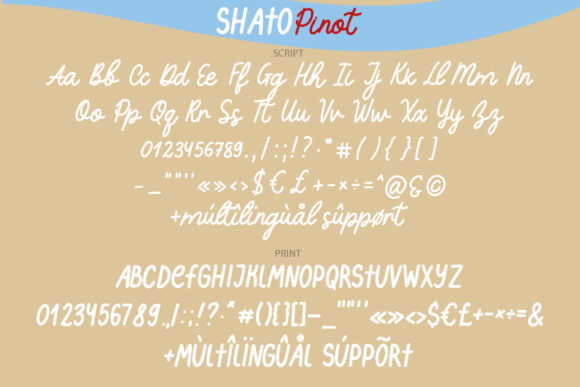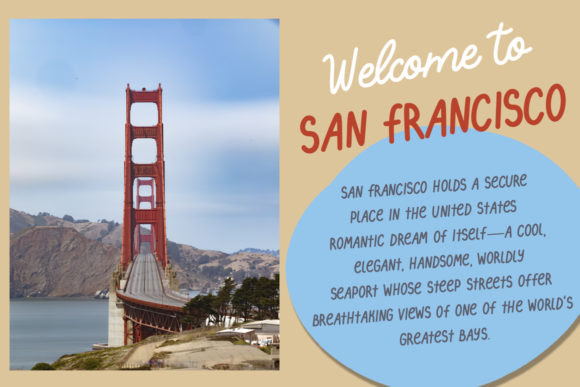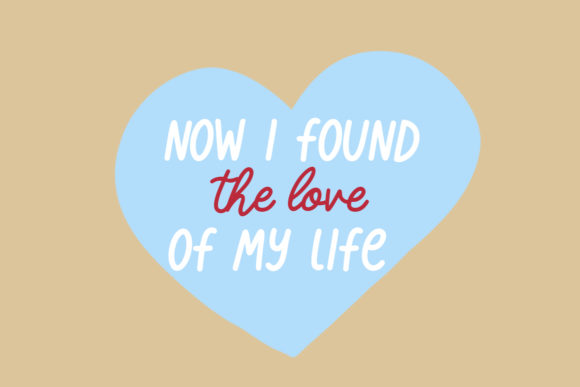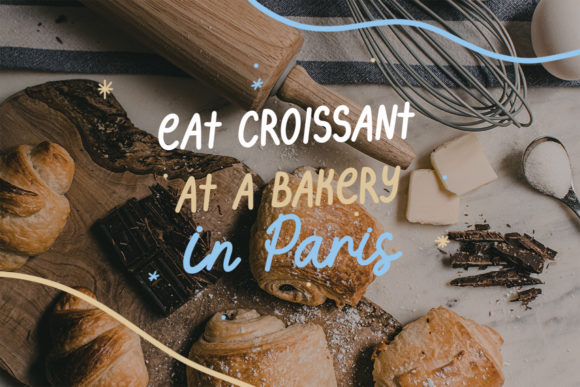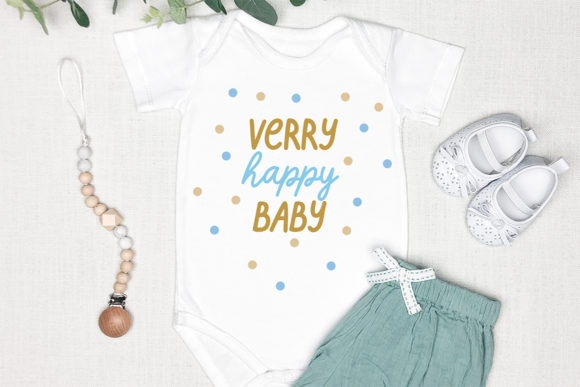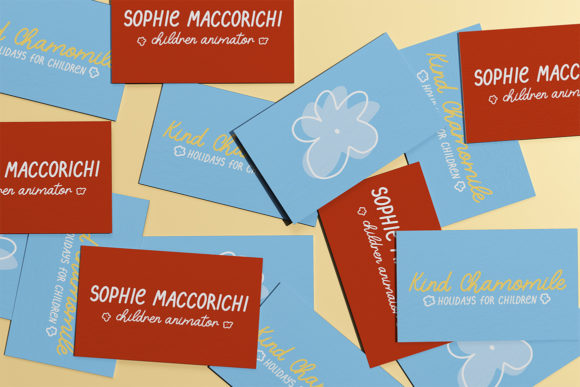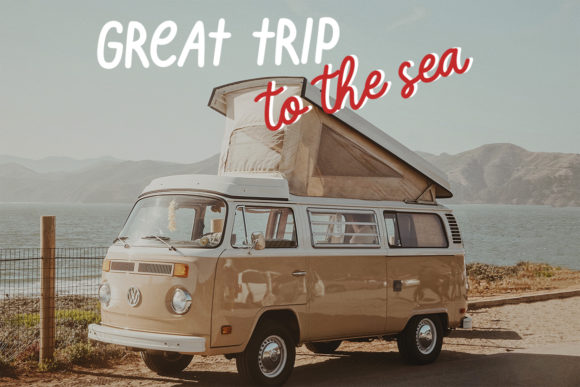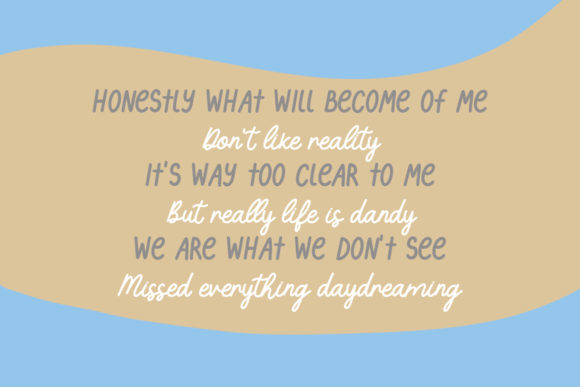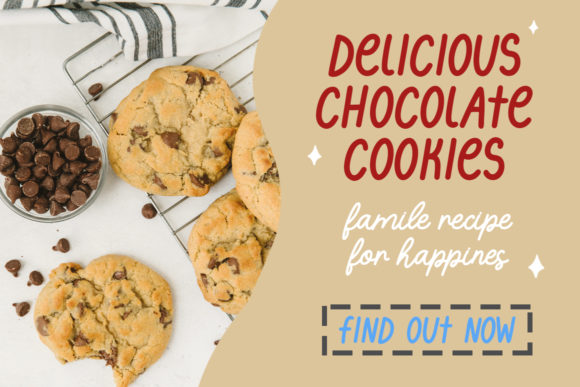
Shato Pinot Duo Font
About Shato Pinot Duo Font
Shato Pinot Duo is a font duo that exudes fun, readability, and a relaxed vibe in its handwritten style. With its charming and versatile nature, this font duo is perfect for adding a touch of playfulness and flair to a wide variety of cute and fun designs, elevating them to the highest level of creativity.
The fun, readable, and relaxed handwritten style of Shato Pinot Duo brings a sense of joy and ease to your creations. Each letter carries the artistic and friendly touch of handwriting, making your work stand out with a touch of genuine charm and allure.
With Shato Pinot Duo as your creative tool, you have the freedom to explore a wide range of design ideas. Whether you’re working on cute and fun projects or seeking a font duo that perfectly complements your playful vision, Shato Pinot Duo adapts effortlessly to bring a sense of versatility and liveliness to your work.
Embrace the fun and relaxed vibe of Shato Pinot Duo and witness how it transforms your designs into delightful works of art. Its readability and approachability add a touch of authenticity, making your creations truly captivating and filled with a sense of joy and creativity.
Discover the joy of creating with Shato Pinot Duo as your trusted companion. Let its handwritten appearance be the key to unlocking your creativity and infusing your work with a sense of fun and playfulness.
Whether you’re designing for personal projects or professional endeavors, Shato Pinot Duo is the font duo that adds that extra touch of flair and excitement to your creations. Embrace Shato Pinot Duo confidently, and notice how it takes your cute and fun designs to the highest level of creativity and appeal.
Let Shato Pinot Duo be the font duo that sparks your inspiration and brings a fun and relaxed touch to your designs. Experience the magic of Shato Pinot Duo and witness how it elevates your creative projects, making them truly delightful and filled with a sense of versatile charm and allure.